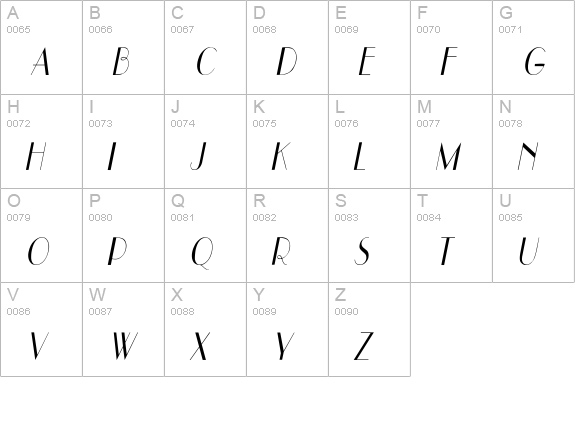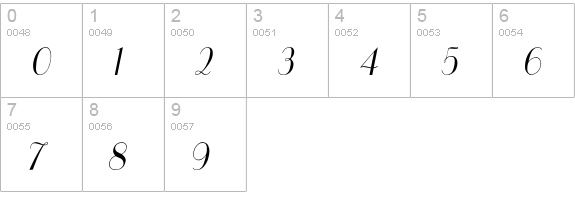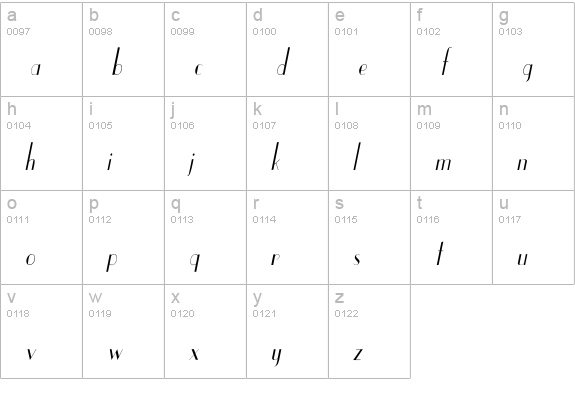
UppEa Cn Italic Font Details
UppEa Cn Italic is a distinctive, italic variant in the UppEa typeface family \xE2\x80\x94 well suited to design and typography projects.
UppEa Cn Italic font is a stunning typeface that exudes elegance and sophistication. Its sleek and stylish letterforms are meticulously crafted with a touch of finesse that sets it apart from other fonts. The unique blend of curves and angles in this italic variation adds a dynamic and contemporary flair to any design. This font showcases a perfect balance between traditional and modern aesthetics, making it an ideal choice for a wide range of projects. Whether you're creating a logo, designing a website, or working on a branding project, UppEa Cn Italic font will effortlessly elevate your design to new heights. The versatility of UppEa Cn Italic font allows it to seamlessly adapt to various design styles and contexts. From high-end fashion brands to tech startups, this font can effortlessly communicate sophistication, professionalism, and creativity. Its legibility ensures that your message is conveyed with clarity and impact. One of the most appealing aspects of UppEa Cn Italic font is that it is freely available to download at FontsMarket.com. This means that you can easily access and use this exceptional font for personal or commercial projects without any restrictions. With just a few clicks, you can enhance your designs with the beauty and allure of UppEa Cn Italic font. Overall, UppEa Cn Italic font is a remarkable typeface that combines elegance, versatility, and accessibility. Its captivating design and freely available nature make it a valuable addition to any designer's toolkit. Download UppEa Cn Italic font today and unlock a world of possibilities for your creative endeavors.